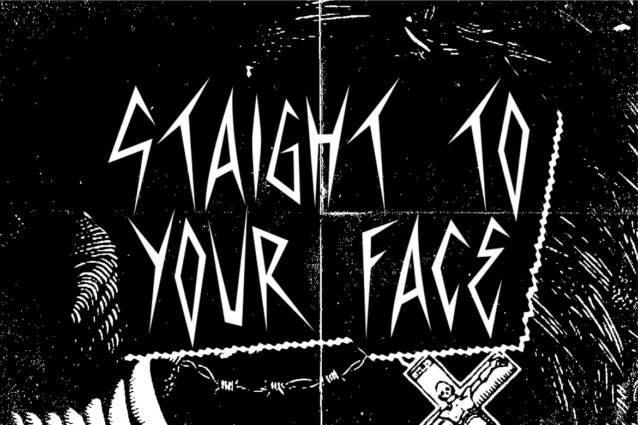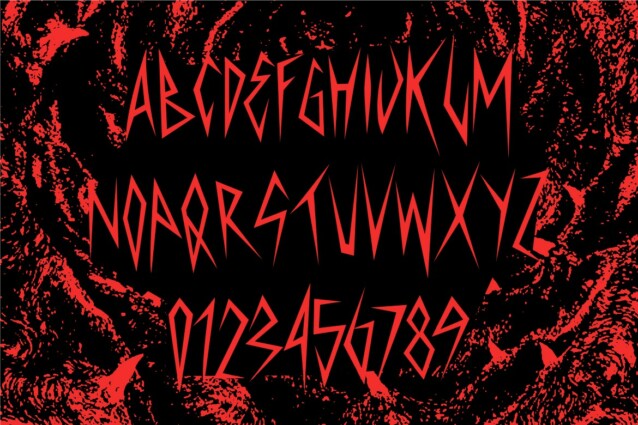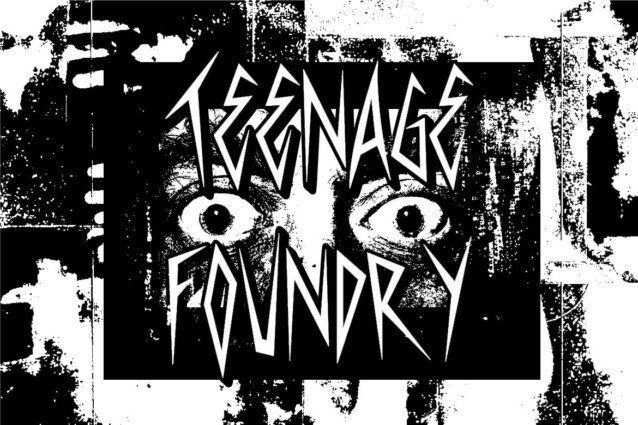
TF Sadistic Font
TF Sadistic Font is our display font, carefully crafted to bring a sharp and charming look to your designs.
With its distinct style and versatile nature, our fonts are the perfect choice for creating attention-grabbing metallics, horror posters, and other impactful visual materials.
Our sharp display fonts are designed to make a statement. Its sharp edges and unique letter shapes exude strength and power.